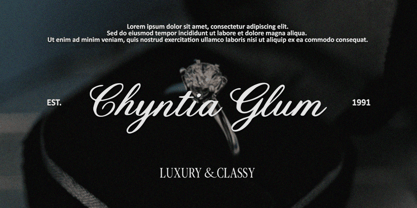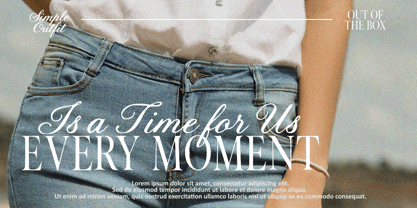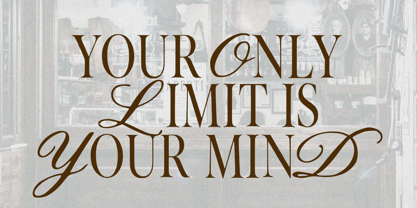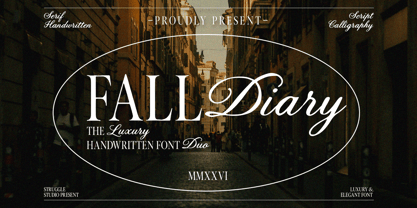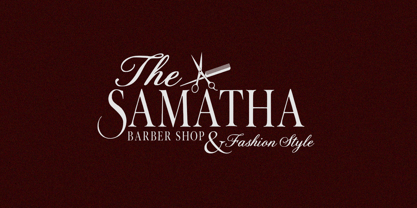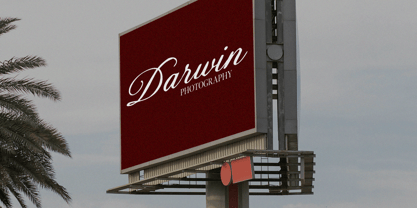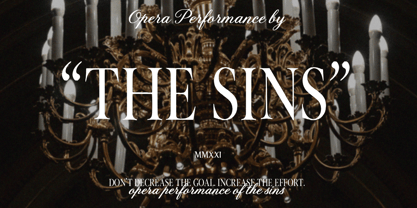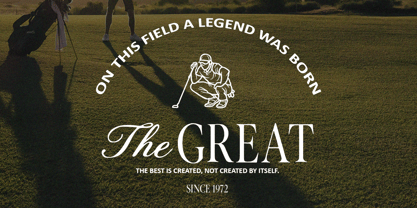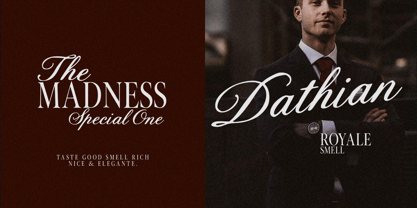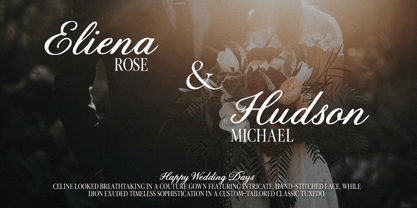
Fall Diary
by Struggle Studio
The Fall Diary Font Family was designed by Andri Kurniawan and published by Struggle Studio. Fall Diary contains 2 styles and family package options. More about this family
Fall Diary is a harmonious blend of tradition and modernity, presenting a font duo meticulously crafted to evoke an instant sense of luxury and personal touch. This collection from Struggle Studio seamlessly pairs two contrasting yet complementary characters: a tall, authoritative Handwritten Serif and a fluid, dynamic Calligraphy Script. Inspired by the nostalgic and elegant atmosphere of autumn, this duo brings a timeless vintage aesthetic that remains perfectly relevant for contemporary design needs. With the sharp, refined lines of the Serif and the artistic flourishes of the Script, Fall Diary effortlessly transforms ordinary layouts into expensive, high-end masterpieces. It is the ideal choice for elevating premium branding identities, boutique logos, sophisticated wedding invitations, and high-fashion editorial layouts. Fall Diary is more than just typography; it is a style statement for those who prioritize grace and elegance in every detail.
Designers: Andri Kurniawan
Foundry: Struggle Studio